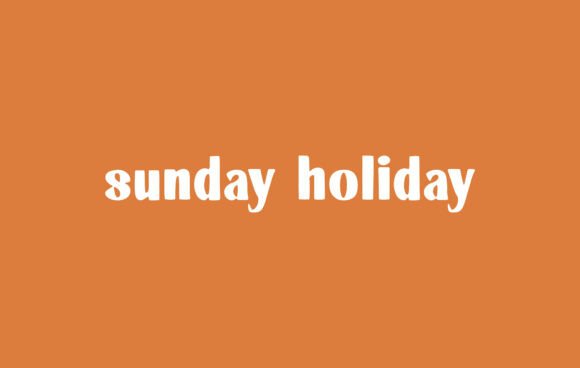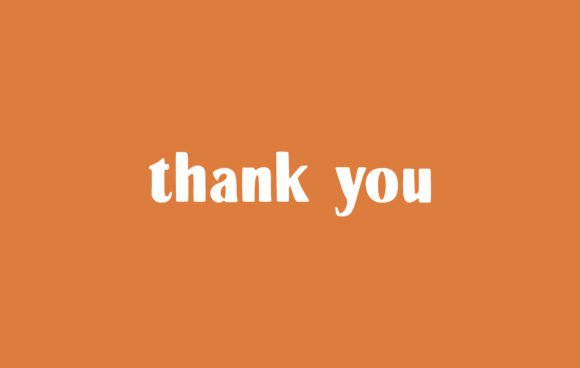
Introducing Elouise Font: The Authentic Handwritten Font with a Romantic Touch
Are you tired of using the same old fonts in your designs? Look no further! Elouise Font is here to take your creative ideas to the next level. This beautifully crafted handwritten font is designed to add a touch of romance and elegance to any project. In this article, we’ll dive into the features and benefits of Elouise Font, and explore how it can be used to elevate your designs.
What is Elouise Font?
Elouise Font is an authentic handwritten font that exudes a sense of warmth and sophistication. Expertly designed to be a true favorite among designers and crafters, this font has the potential to transform your creative ideas into stunning visual realities. With its legible and versatile design, Elouise Font looks great as both title and body text, making it perfect for a wide range of applications.
Key Features of Elouise Font
- Authentic Handwritten Design: Elouise Font boasts a genuine handwritten look that adds a personal touch to any design.
- Romantic Touch: The font’s elegant and flowing lines evoke a sense of romance and sophistication.
- Legible and Versatile: Elouise Font is designed to be easy to read, making it perfect for both title and body text.
- Wide Range of Applications: From magazine headlines to social media graphics, branding, wedding invitations, and cards, Elouise Font is suitable for a variety of design projects.
Benefits of Using Elouise Font
So, why choose Elouise Font for your next design project? Here are just a few benefits of using this beautiful font:
- Adds a Personal Touch: Elouise Font’s handwritten design adds a personal and human touch to your designs, setting them apart from more generic fonts.
- Enhances Readability: The font’s legible design ensures that your text is easy to read, even at smaller sizes.
- Boosts Creativity: With Elouise Font, you can experiment with a range of design ideas, from elegant and sophisticated to playful and whimsical.
- Perfect for Branding: The font’s unique and memorable design makes it ideal for branding and logo design, helping to establish a strong visual identity for your business or product.
Design Ideas Using Elouise Font
So, how can you use Elouise Font in your designs? Here are a few ideas to get you started:
- Wedding Invitations: Add a touch of romance and elegance to your wedding invitations with Elouise Font.
- Social Media Graphics: Use Elouise Font to create eye-catching social media graphics that stand out from the crowd.
- Magazine Headlines: Add a touch of sophistication to your magazine headlines with Elouise Font.
- Branding and Logo Design: Use Elouise Font to create a unique and memorable visual identity for your business or product.
- Crafting and DIY Projects: Elouise Font is perfect for a range of crafting and DIY projects, from card making to scrapbooking.
In conclusion, Elouise Font is a beautiful and versatile handwritten font that can add a touch of romance and elegance to any design project. With its legible and authentic design, Elouise Font is perfect for a wide range of applications, from magazine headlines to social media graphics, branding, and crafting projects. Whether you’re a designer, crafter, or DIY enthusiast, Elouise Font is sure to become a favorite in your creative arsenal.